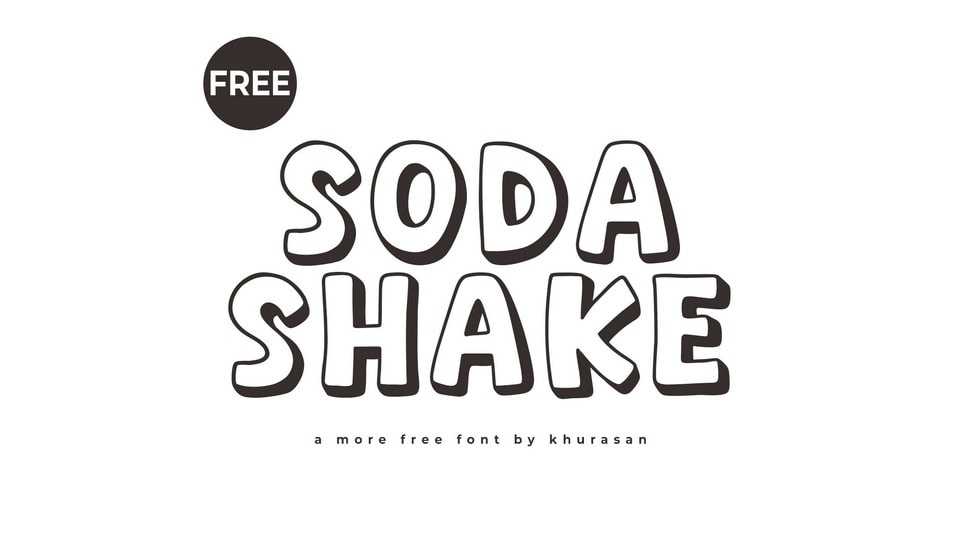
Soda Shake Font › Fontesk – Fonte Grátis
Download Soda Shake font, a playful and funny hand-drawn typeface with a whimsical shadow effect that adds depth and humor to your text.